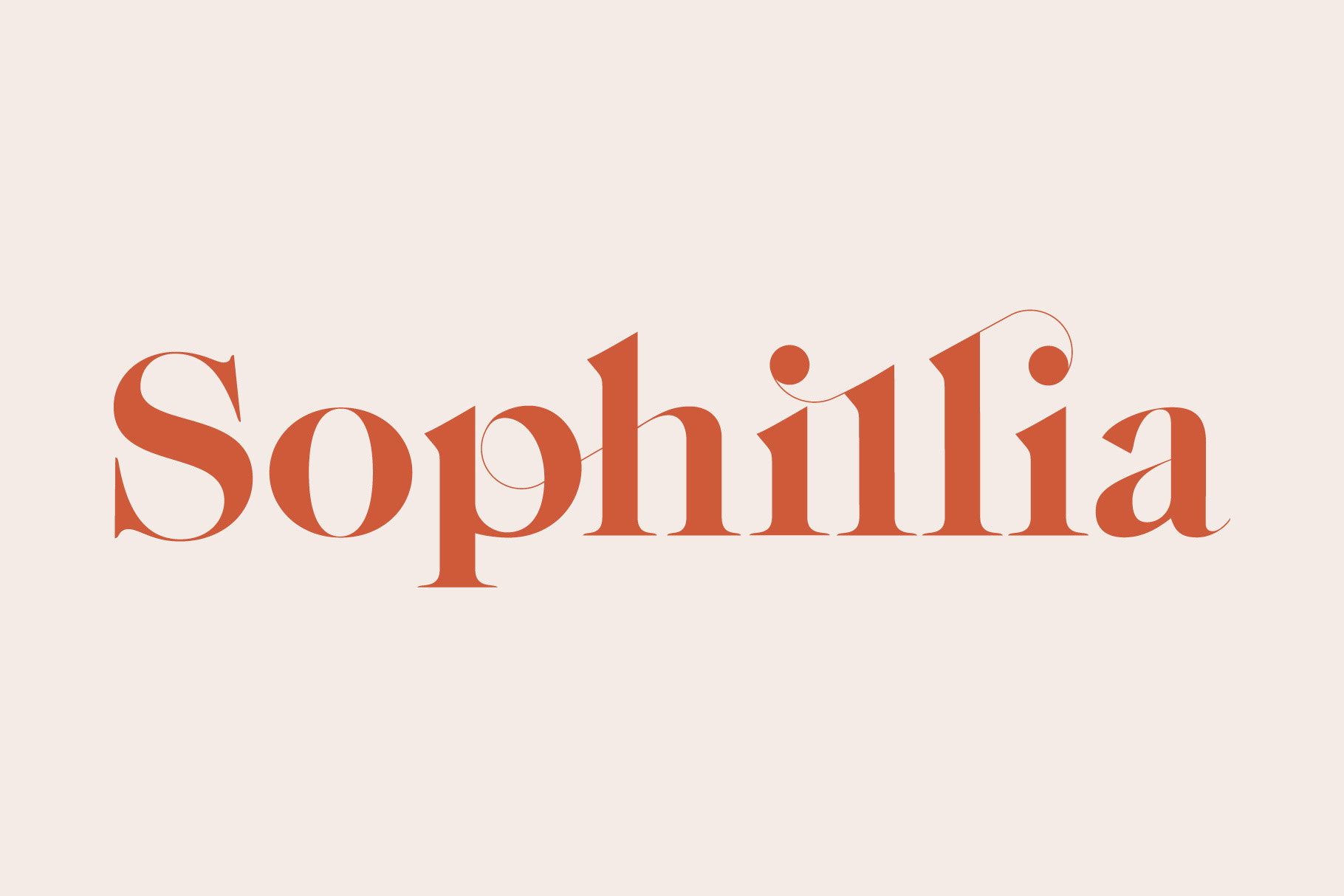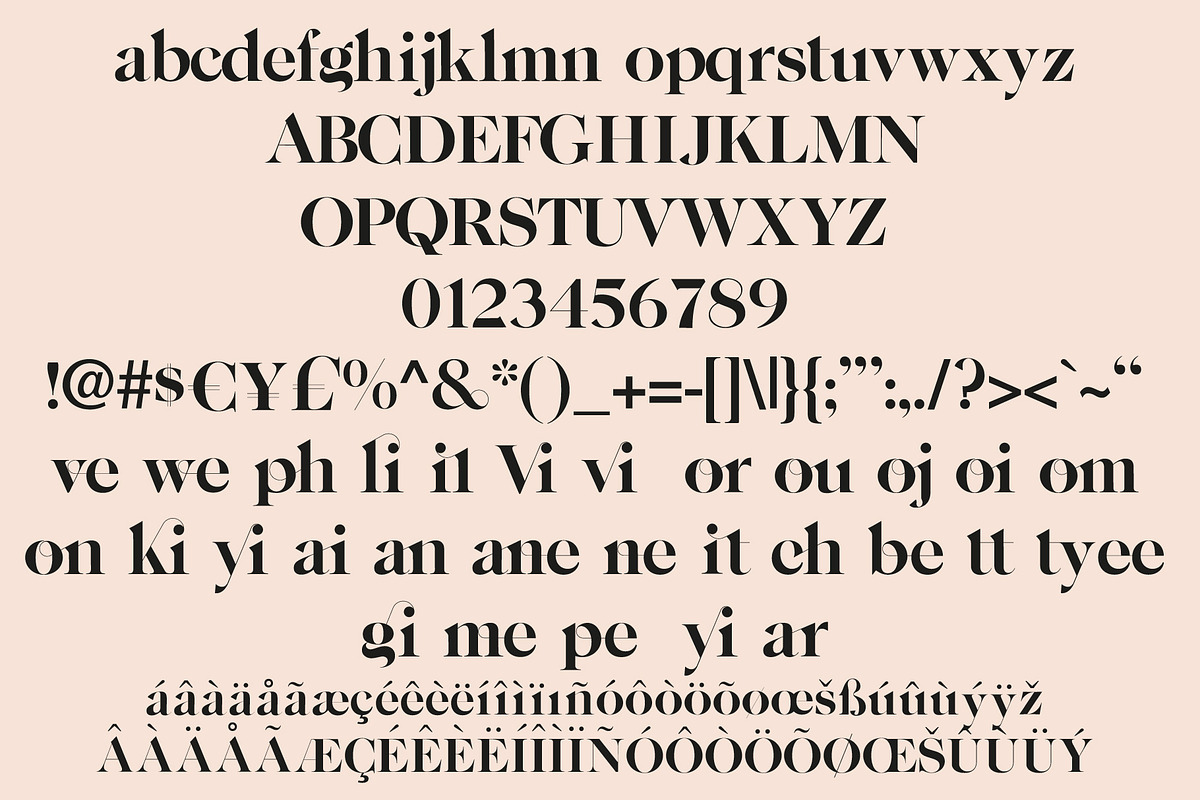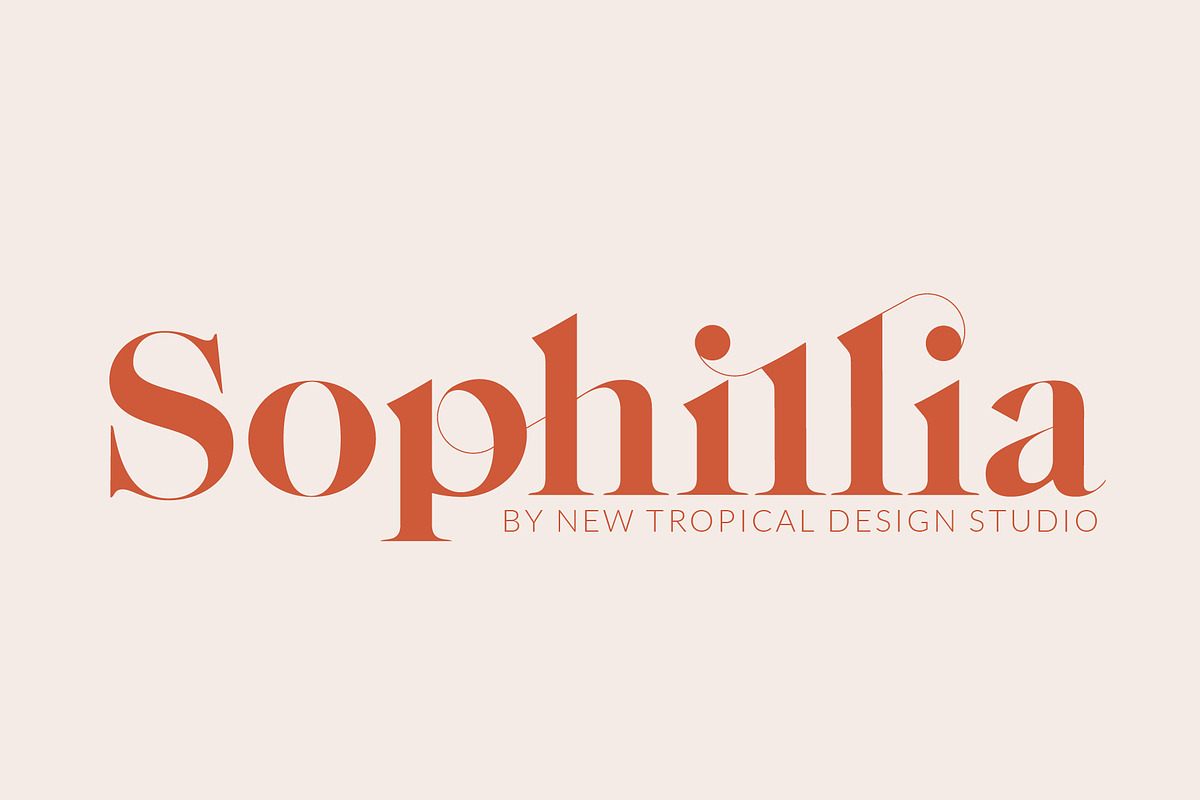
Sophillia - Ligature Serif Font
Sophillia is a super unique ligature font that you wont forget! It's a high contrast serif that has loads of style. A modern take on a Caslon style typeface, this font is ideal for those big bold headings or wedding invitations. It's got hundreds of characters and ligatures plus all those European letters! Sophillia pairs perfectly with a light scripts font or minimal sans serif.